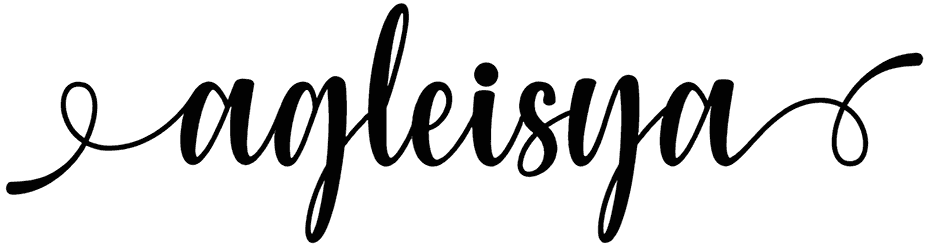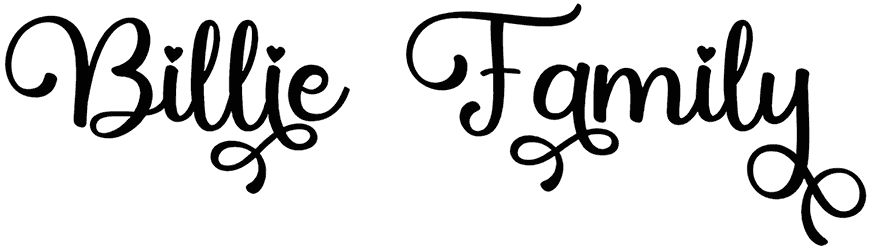
Thanks Valentine Font
Show how unique your taste is by choosing a dapper manuscript context. This calligraphy font, named Thanks Valentine, consists of modern and beautiful letters that can be harmonized with any title. As a handwritten font, test Thanks Valentine font for your coming designs, such as postcards, wedding invitations, packaging, branding, or more of the same, and make them more impressive.